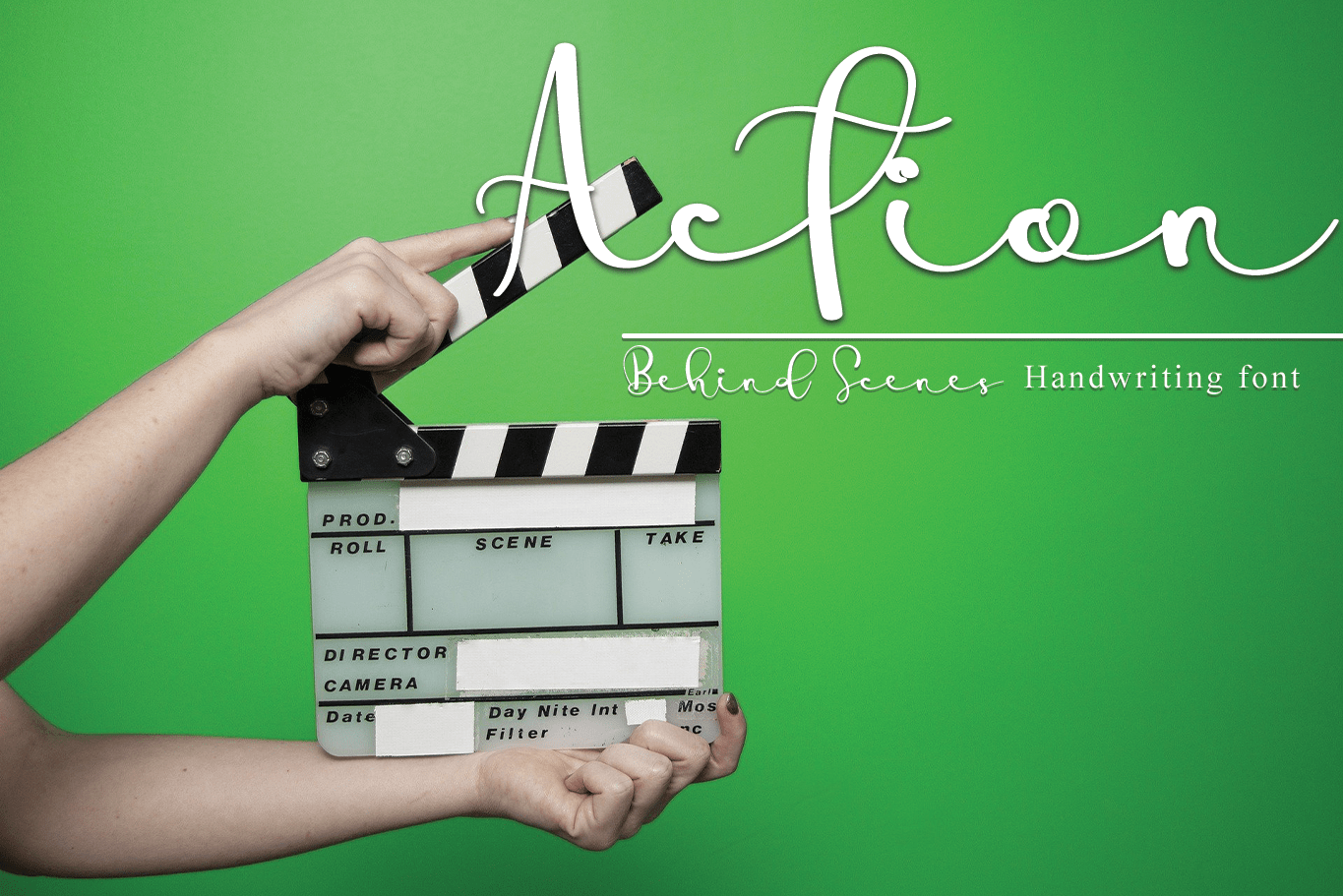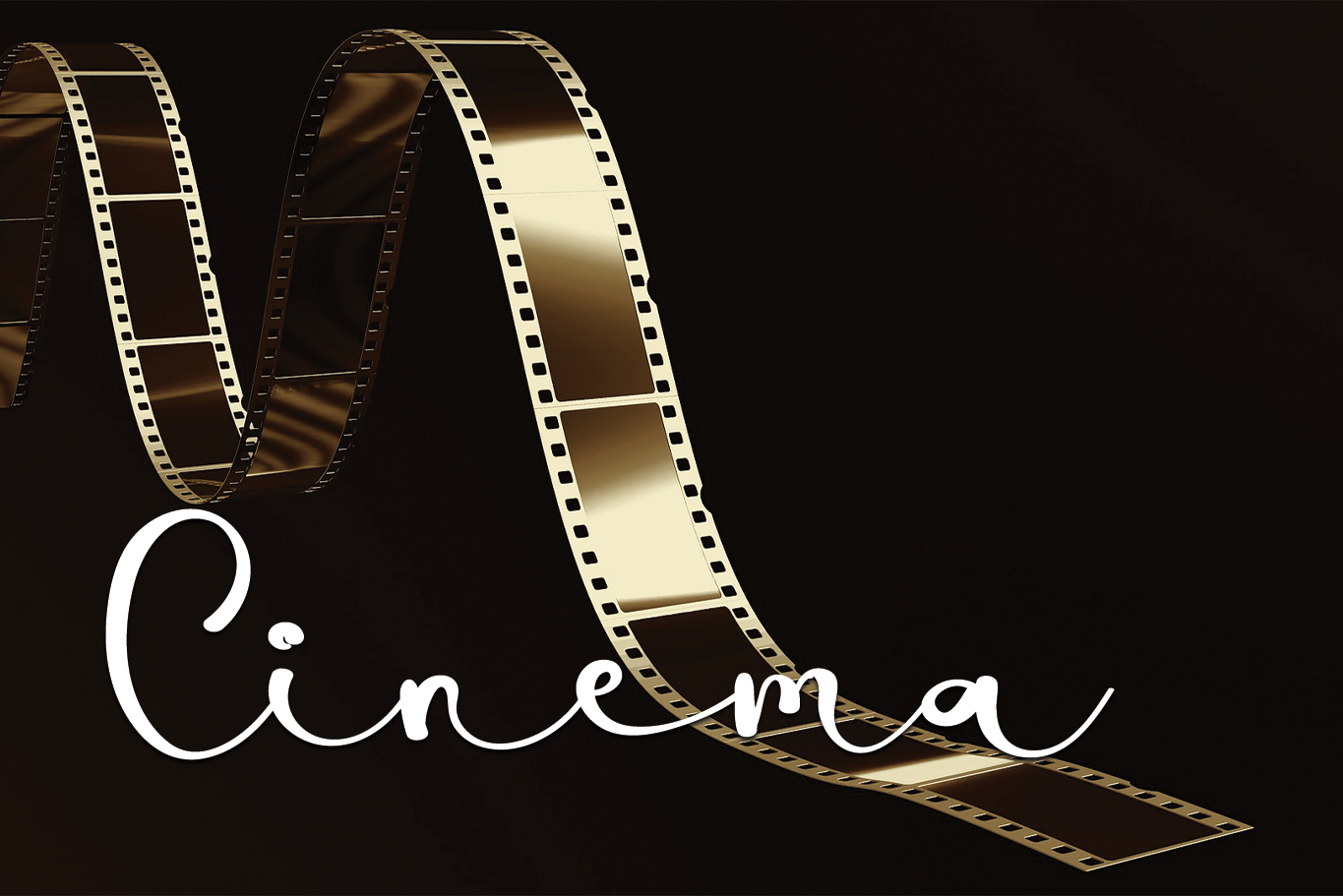
Behind Scenes Font
Behind Scenes Script Font
This is a fashionable script font. It is neatly crafted and highly detailed. Whatever the topic, this font will be a wonderful asset to your font library, as it has the potential to enhance any creation.